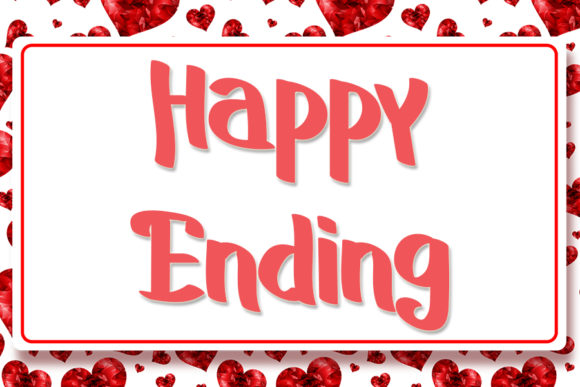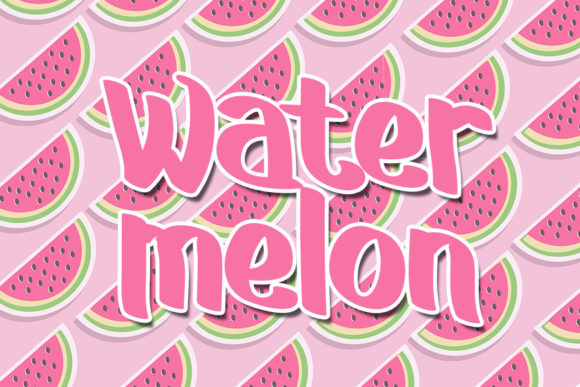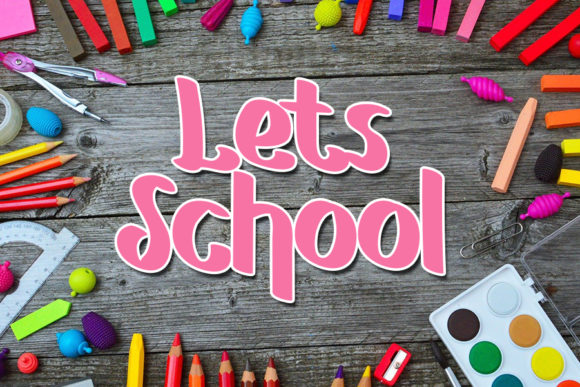
Dyalova Font: The Sweet and Whimsical Handwritten Font for Designers and Crafters
Are you a designer, crafter, or digital artist looking for a font that can add a touch of sweetness and playfulness to your projects? Look no further than Dyalova Font! This charming handwritten font is perfect for a variety of creative endeavors, from crafting and digital designing to presentations and greeting cards making.
What is Dyalova Font?
Dyalova Font is a sweet, jolly, and whimsical handwritten font that is sure to capture the hearts of designers and crafters alike. Its playful and carefree vibe makes it an ideal choice for projects that require a personal and friendly touch. Whether you’re creating digital content, crafting handmade cards, or designing presentations, Dyalova Font is the perfect companion to help you bring your ideas to life.
Features of Dyalova Font
Dyalova Font boasts a range of features that make it an excellent choice for designers and crafters. Some of its notable features include:
- Sweet and Whimsical Design: Dyalova Font features a unique and charming design that is sure to add a touch of personality to your projects.
- Handwritten Style: The font’s handwritten style gives it a personal and friendly feel, making it perfect for projects that require a human touch.
- Versatile: Dyalova Font is highly versatile and can be used for a wide range of projects, from digital designing to crafting and presentations.
- Easy to Read: The font is easy to read, making it perfect for body text and headings.
Uses of Dyalova Font
Dyalova Font is perfect for a variety of creative projects, including:
- Crafting: Use Dyalova Font to create handmade cards, scrapbook pages, and other craft projects that require a personal touch.
- Digital Designing: The font is perfect for digital designers who want to add a touch of whimsy and playfulness to their designs.
- Presentations: Dyalova Font is an excellent choice for presentations that require a friendly and approachable tone.
- Greeting Cards Making: Use the font to create beautiful and personalized greeting cards for special occasions.
Benefits of Using Dyalova Font
Using Dyalova Font in your projects offers a range of benefits, including:
- Unique and Personalized Designs: The font’s unique design ensures that your projects stand out from the crowd and have a personalized touch.
- Increased Creativity: Dyalova Font’s playful and whimsical vibe can help stimulate your creativity and inspire new ideas.
- Time-Saving: The font is easy to use and can save you time and effort in creating beautiful and professional-looking designs.
Tips for Using Dyalova Font
Here are some tips for using Dyalova Font in your projects:
- Experiment with Different Sizes and Colors: Try out different sizes and colors to see what works best for your project.
- Pair with Other Fonts: Dyalova Font pairs well with other fonts, so feel free to experiment with different combinations.
- Use for Headings and Body Text: The font is suitable for both headings and body text, making it a versatile choice for your projects.
In conclusion, Dyalova Font is a sweet, jolly, and whimsical handwritten font that is perfect for designers and crafters who want to add a touch of personality to their projects. Its versatility, ease of use, and unique design make it an excellent choice for a wide range of creative endeavors. So why not give Dyalova Font a try and see how it can bring a smile to your project’s face?